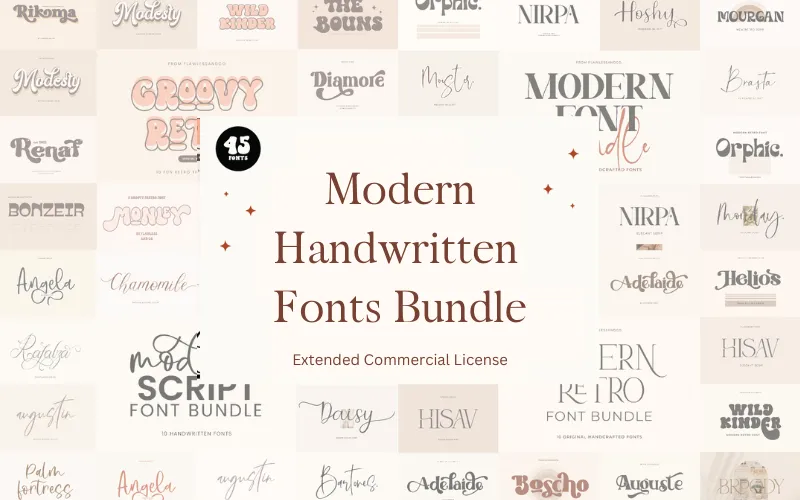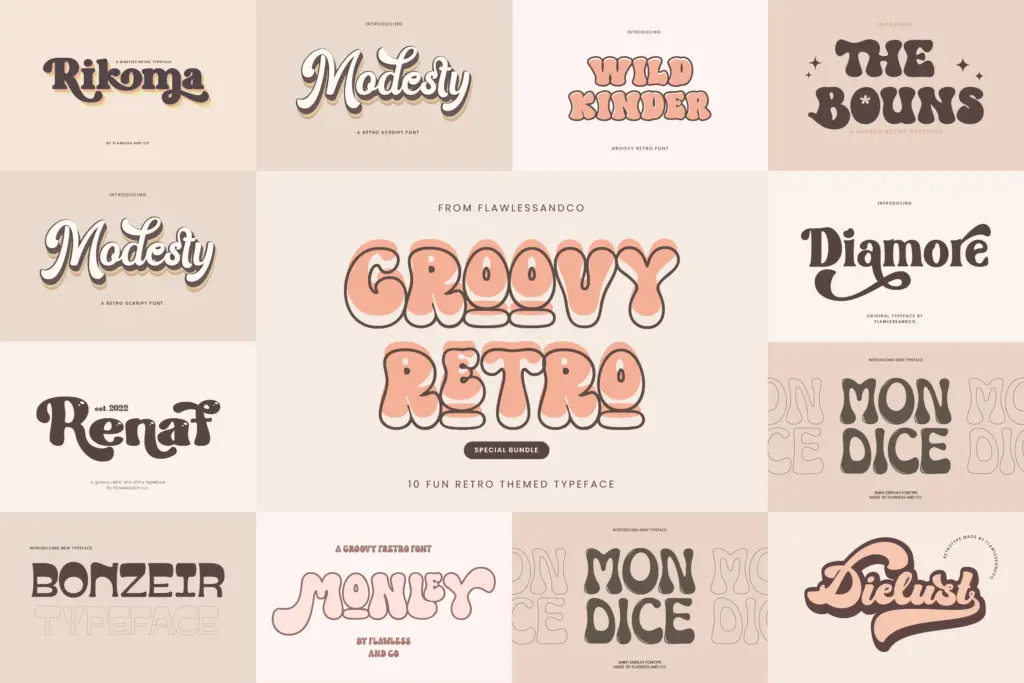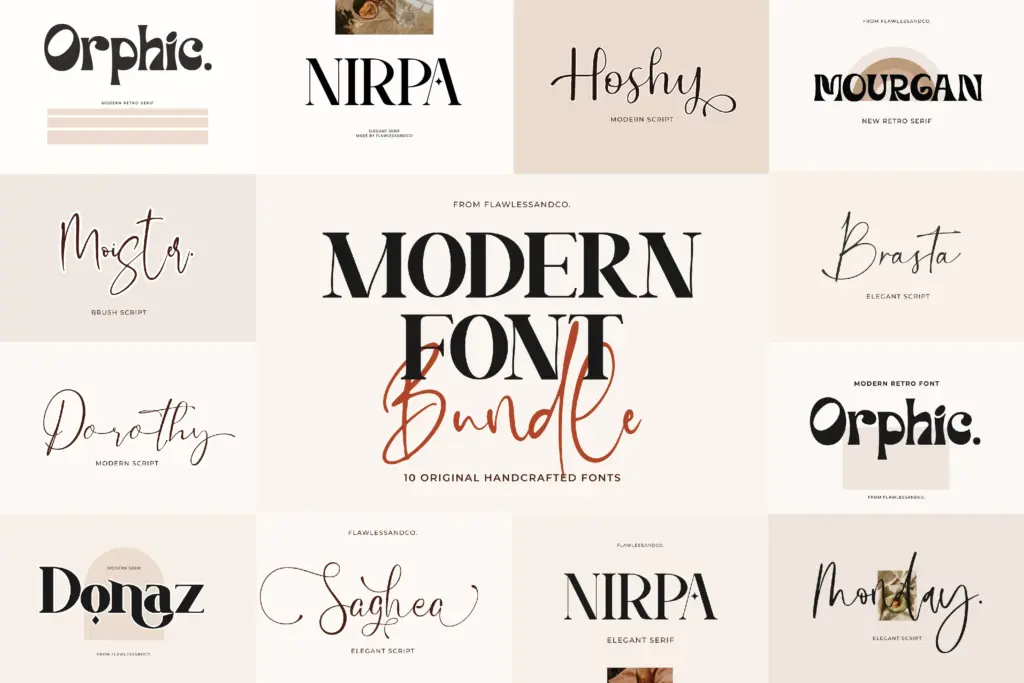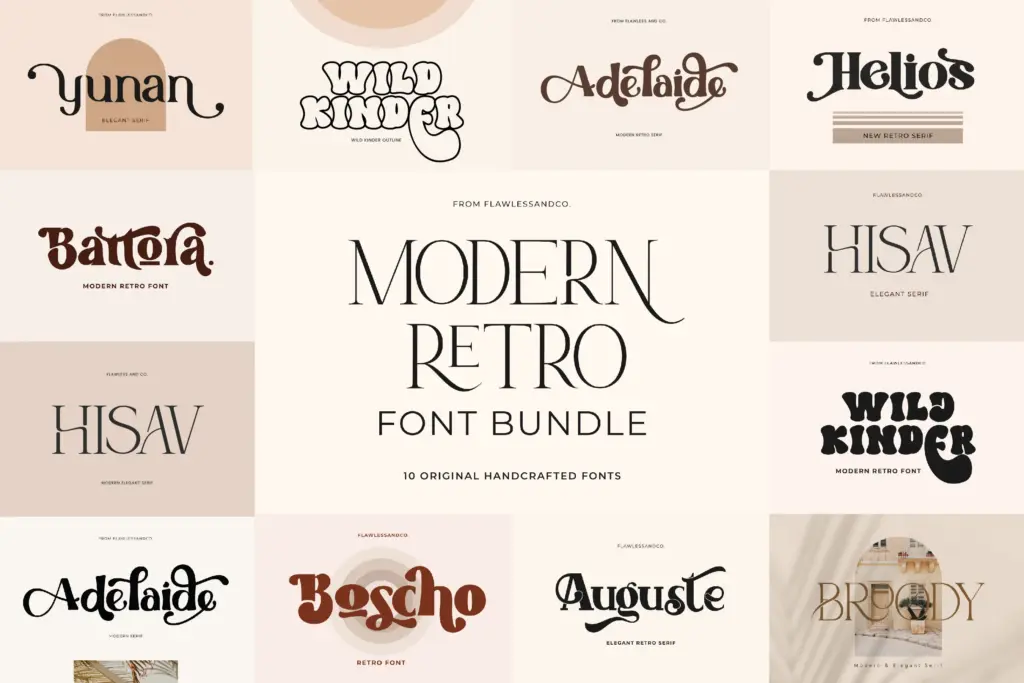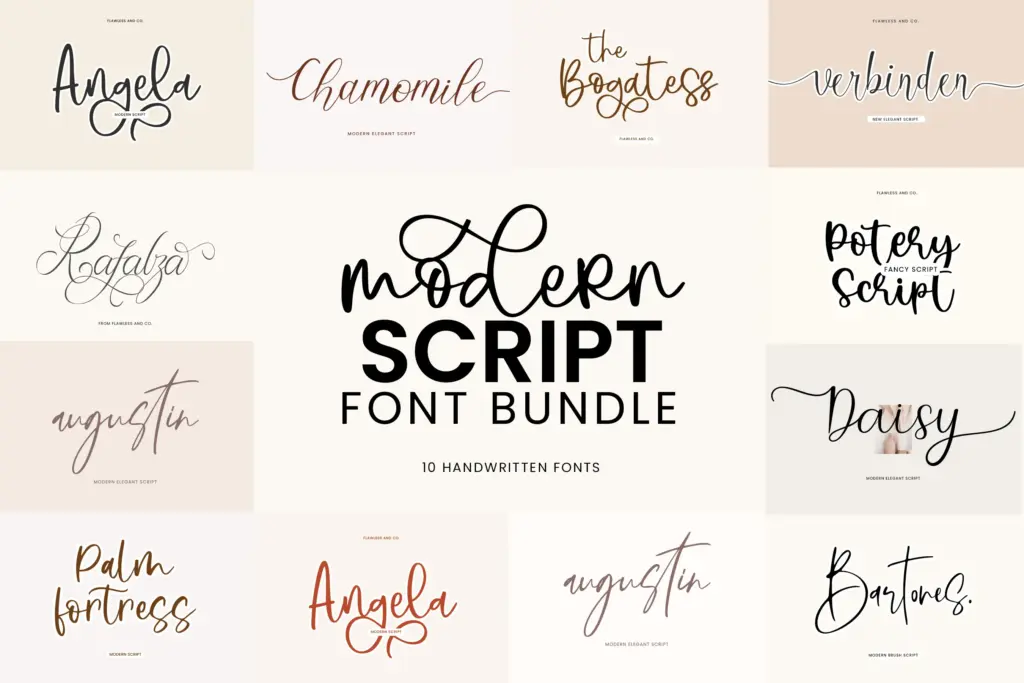
From elegant editorials to groovy retro posters, your typography should never feel restricted. That’s why DealFuel brings you the –
Modern Handwritten Fonts Bundle
This bundle blends –
- Modern Handwritten Scripts,
- Groovy Retro Typefaces,
- Elegant Serifs, and
- Clean Modern fonts into one versatile package.
It ranges from expressive script fonts for logos to bold retro styles for statement designs, and clean modern typefaces for branding or digital work.
The Modern Handwritten Fonts Bundle Includes:
- Adelaide
- Donaz
- Saghea
- Boscho New
- Broody New
- Helios Retro
- Hisav
- Wild Kinder Outline
- Wild Kinder Regular
- Yunan
- Mourghan
- Auguste
- Battora
- Orphic
- Nirpa
- Moister Script
- Monday Script
- Dorothy
- Brasta
- Hoshy
- Dielust Regular
- Dielust Outline
- Dielust Extrude
- Diamore
- Bonzeir
- Renaf
- Mondice
- Rikoma
- The Bouns
- Modesty Regular
- Modesty Outline
- Modesty Extrude
- Monley Regular
- Monley Outline
- Potery Script
- Hello Angela
- Palm Fortress
- Rafalza
- Chamomile
- Verbinden
- Daisy
- Chamomile
- Bartones
- Augustin
- The Bogatess
- 44 Modern Handwritten Fonts
- Categories: Script, Serif, Sans Serif & Retro Styles
- Types: Signature, Calligraphy, Modern, Minimal, Elegant, Retro, and Creative Display styles
Preview Of The Modern Handwritten Fonts Bundle:
Modern Script Fonts Bundle:
Modern Fonts Bundle:
Groovy Retro Fonts Bundle:
Modern Retro Fonts Bundle: